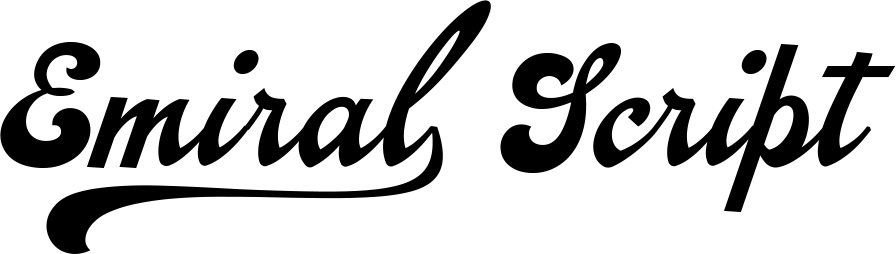
Emiral Script Font
If you want to convey a nostalgic mood to your audience in your artwork, Emiral Script can be a great font for you. This script font, which looks like old handwriting, does not support numbers. All Emiral Script characters are designed in two different styles. You can use this font to design posters and movie logos.
http://mn.sg/emiral-scriptWrite an underscore after any word to make a swash.
Example: Emiral_
If your software supports ligatures, you can write multiple underscores for a longer line.
Example: Oldtimer__For questions, please visit www.mn.sg/faq